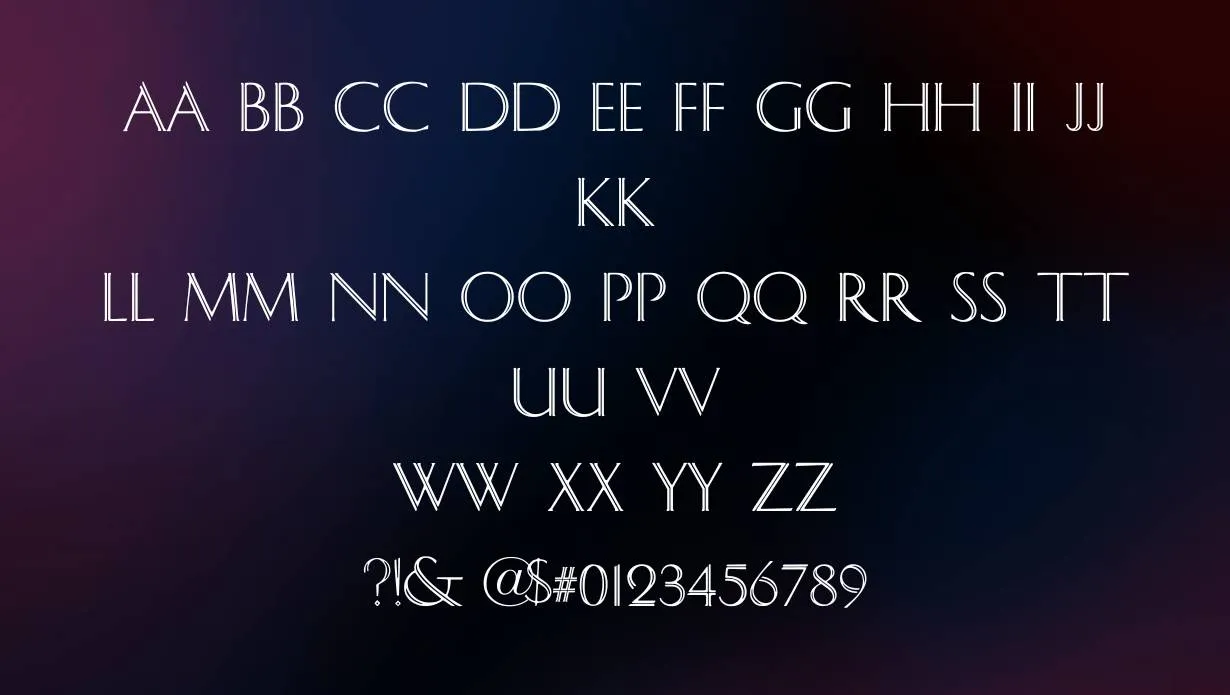
The Caesar Font carries an air of sophistication, reminiscent of ancient elegance. Its timeless characters add a touch of history to graphics in Adobe Photoshop, lend a sense of classic style to webpages with CSS, and bring a touch of nobility to documents in MS Word.
This font effortlessly adapts to various design applications, embodying a classic charm that transcends time.